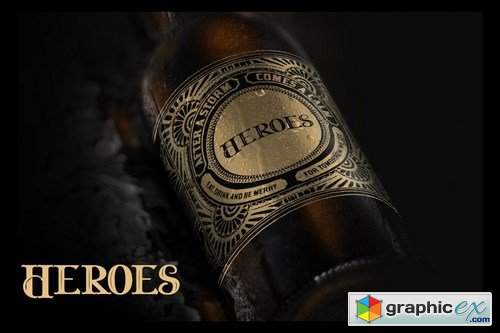
Beguns Simple Victorian
Beguns | Simple Victorian with a calligraphy style, So beautiful on invitation like greeting cards, branding materials, business cards, quotes, posters, and more!